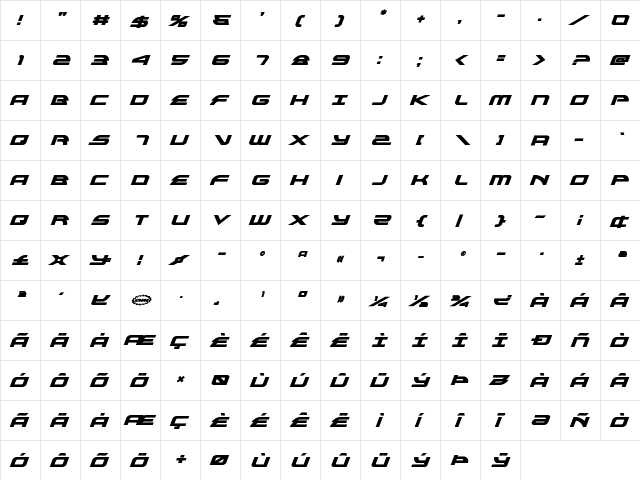
Alexis Bold Italic Bold Italic
Design Context for Alexis Bold Italic Typeface
Alexis Bold Italic takes a measured approach to typography — its balanced proportions and neutral character make it a reliable workhorse for both digital and print work. Its italic angle brings a sense of urgency and motion to the letterforms. Its bold stroke weight gives it real presence on the page.
Pro Tip: Use Alexis Bold Italic for emphasis, pull quotes, and subheadings where its slanted energy can add rhythm to the layout.